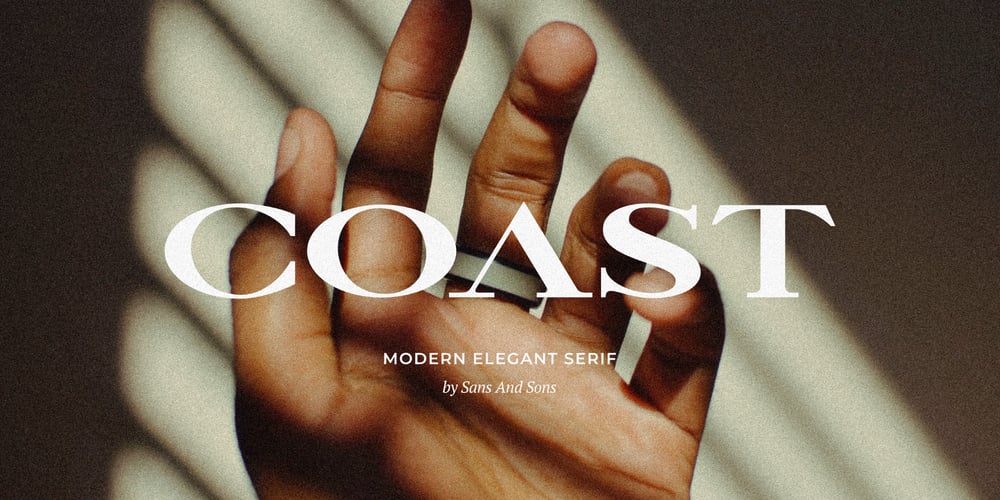
La Coast Font Family was designed by Angga Suwista and published by Sans And Sons. La Coast contains 1 styles and family package options. La Coast is Modern Serif with Elegant and Unique Luxury Style and each unique letters designed to create harmoniously, charming and lend themselves to high end branding, product packaging, logo designs & invitation designs.